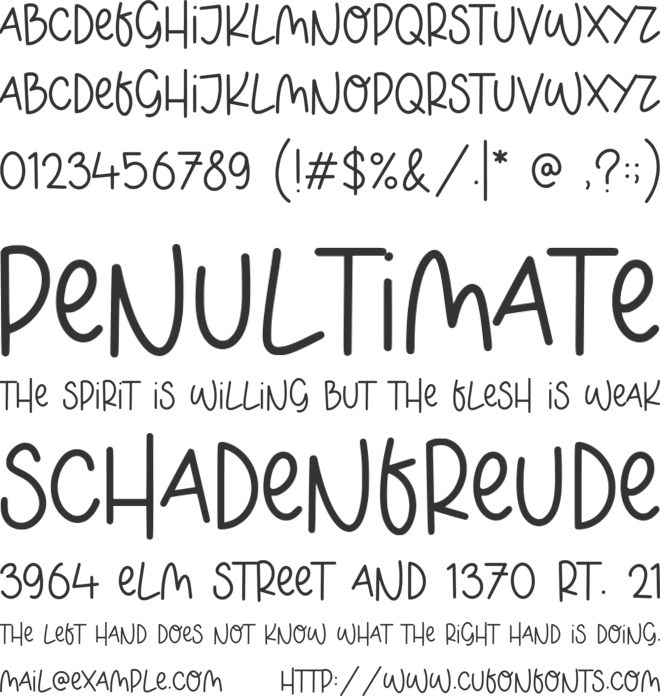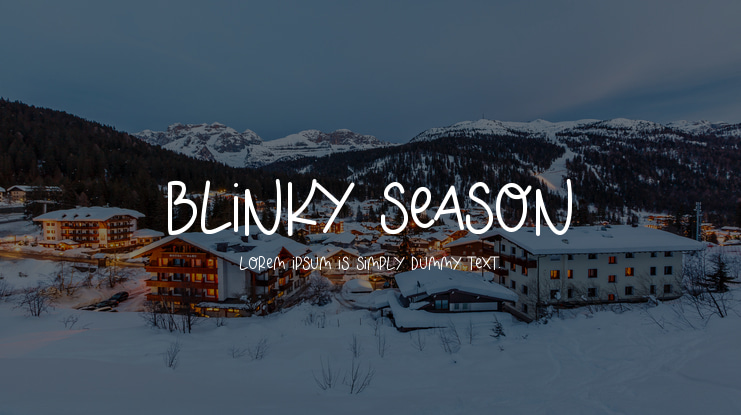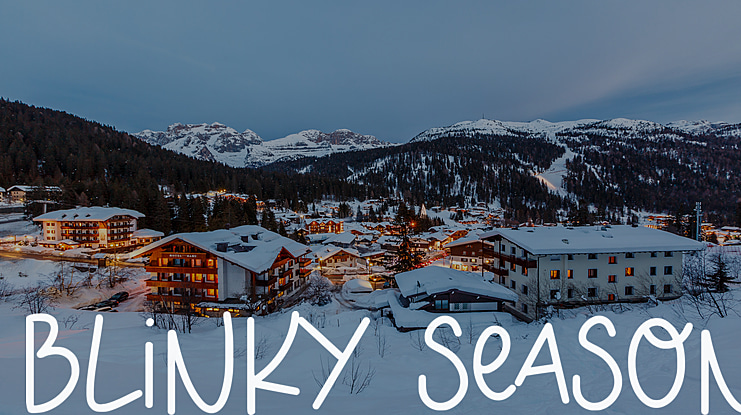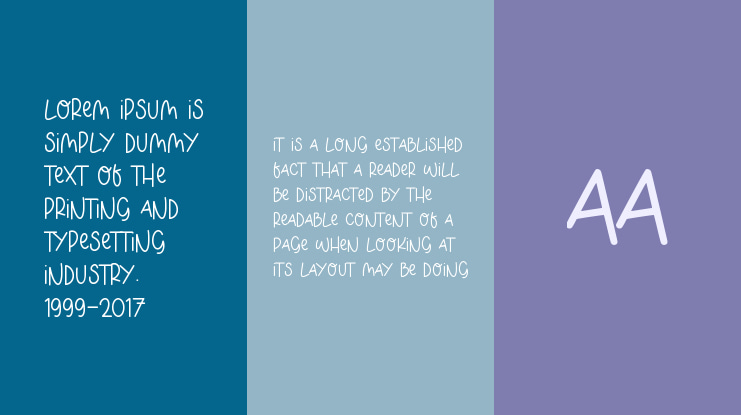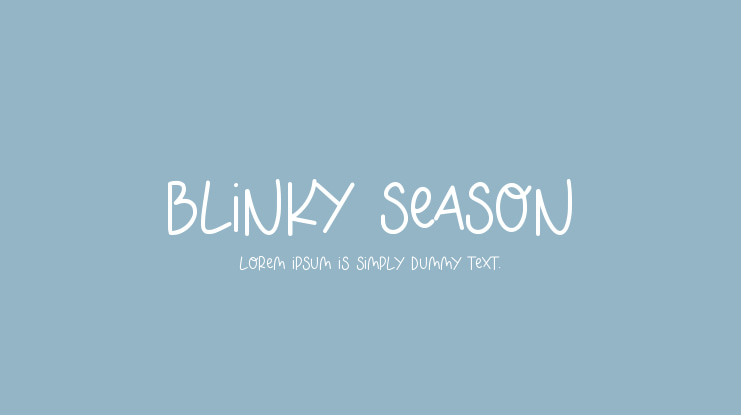
BLINKY SEASON Font
Introducing by Balpirick Studio.
Proudly Present, BLINKY SEASON Font.
BLINKY SEASON is a Monoline Font.
BLINKY SEASON is perfect for product packaging, branding project, megazine, social media, wedding, or just used to express words above the background.